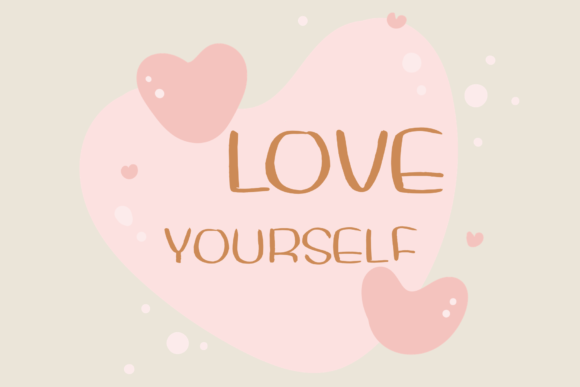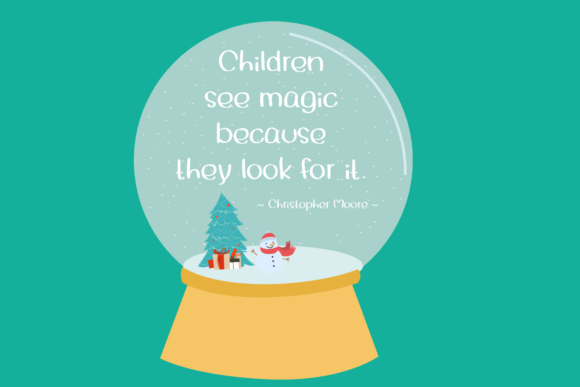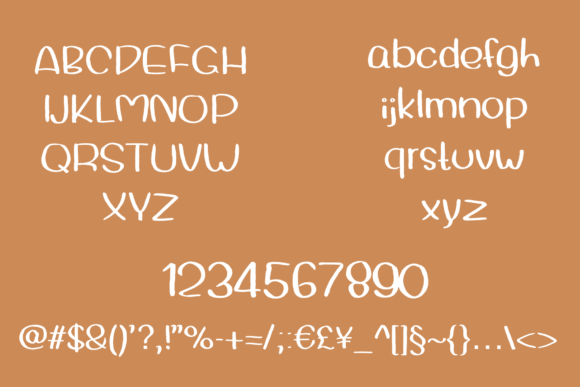
PlaygroundNW Font: Free Download Now
Introduction to PlaygroundNW Font
PlaygroundNW is a cute and delicate handwritten font.
It is incredibly fit for any school related or children craft .
Why Choose PlaygroundNW Font?